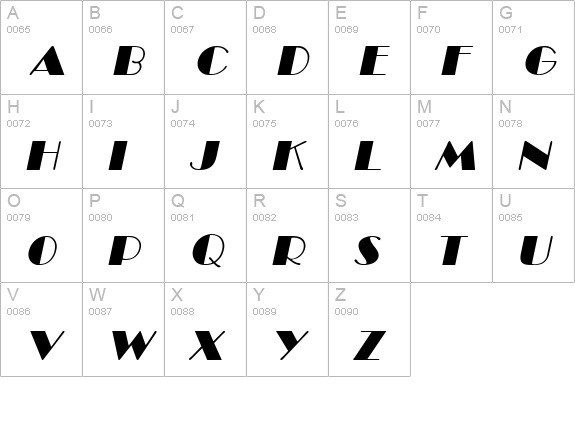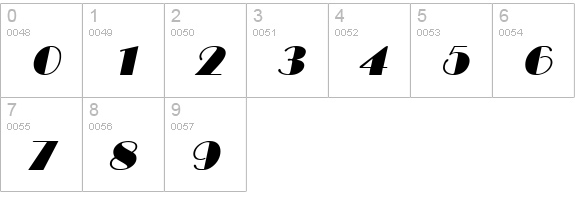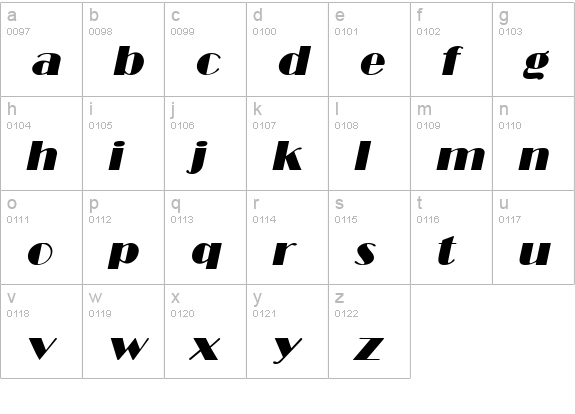
Invite SF Italic Font Details
Invite SF Italic is a distinctive, italic variant in the Invite typeface family \xE2\x80\x94 well suited to design and typography projects.
Invite SF Italic is a stunning font that exudes elegance and sophistication. With its sleek and slanted design, this font adds a touch of modernity to any project. The italicized letters flow gracefully, creating a sense of movement and style. This font is perfect for those looking to add a touch of class to their designs. Whether you're working on a wedding invitation, a formal event flyer, or even a logo for a high-end brand, Invite SF Italic will elevate your design to new heights. One of the best things about Invite SF Italic is that it is completely free. That's right, this exquisite font is freely available to download at FontsMarket.com. So you can enhance your projects with a premium-looking font without having to spend a dime. Don't miss out on this amazing opportunity to elevate your designs with Invite SF Italic. Download it now from FontsMarket.com and instantly transform your projects into works of art.